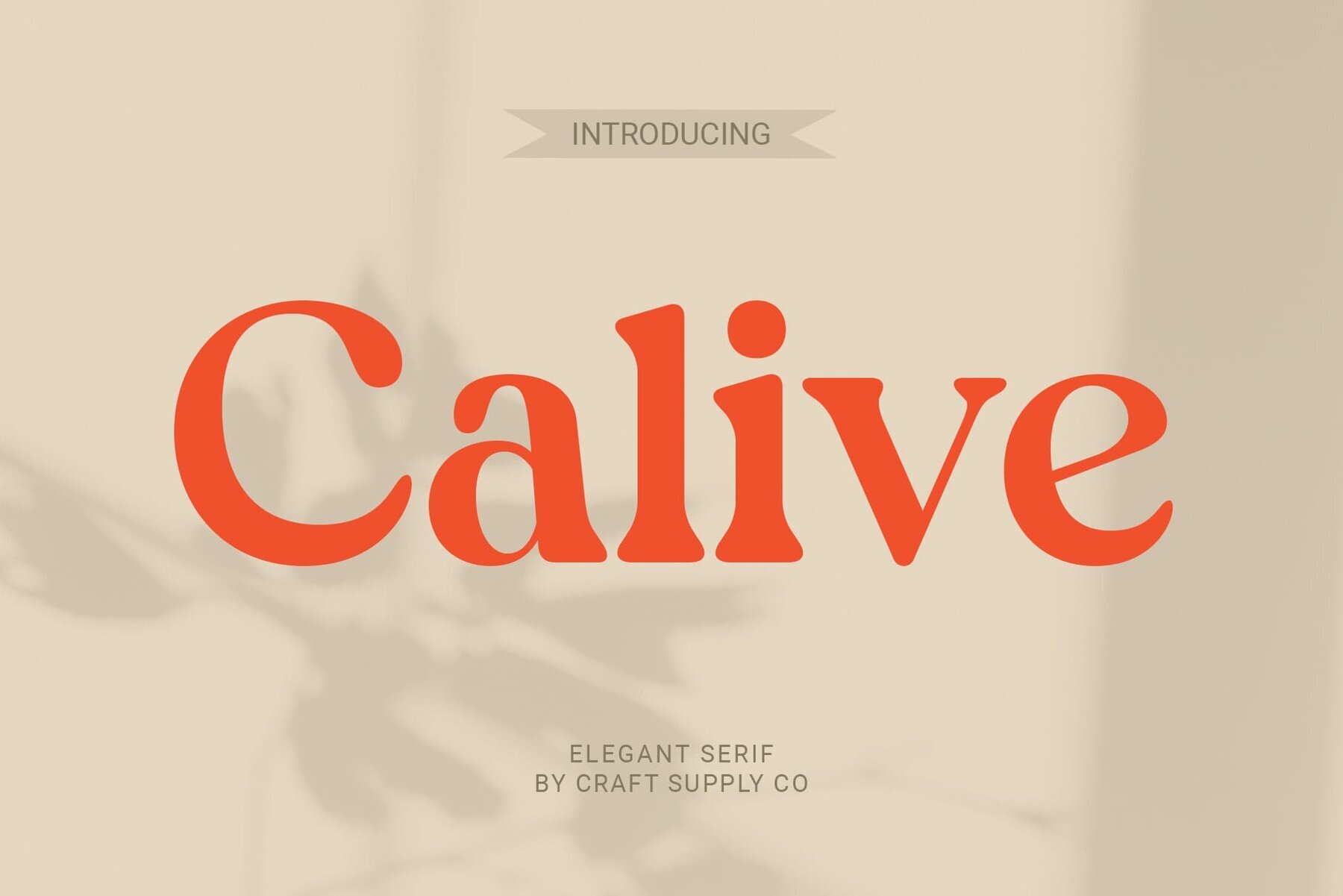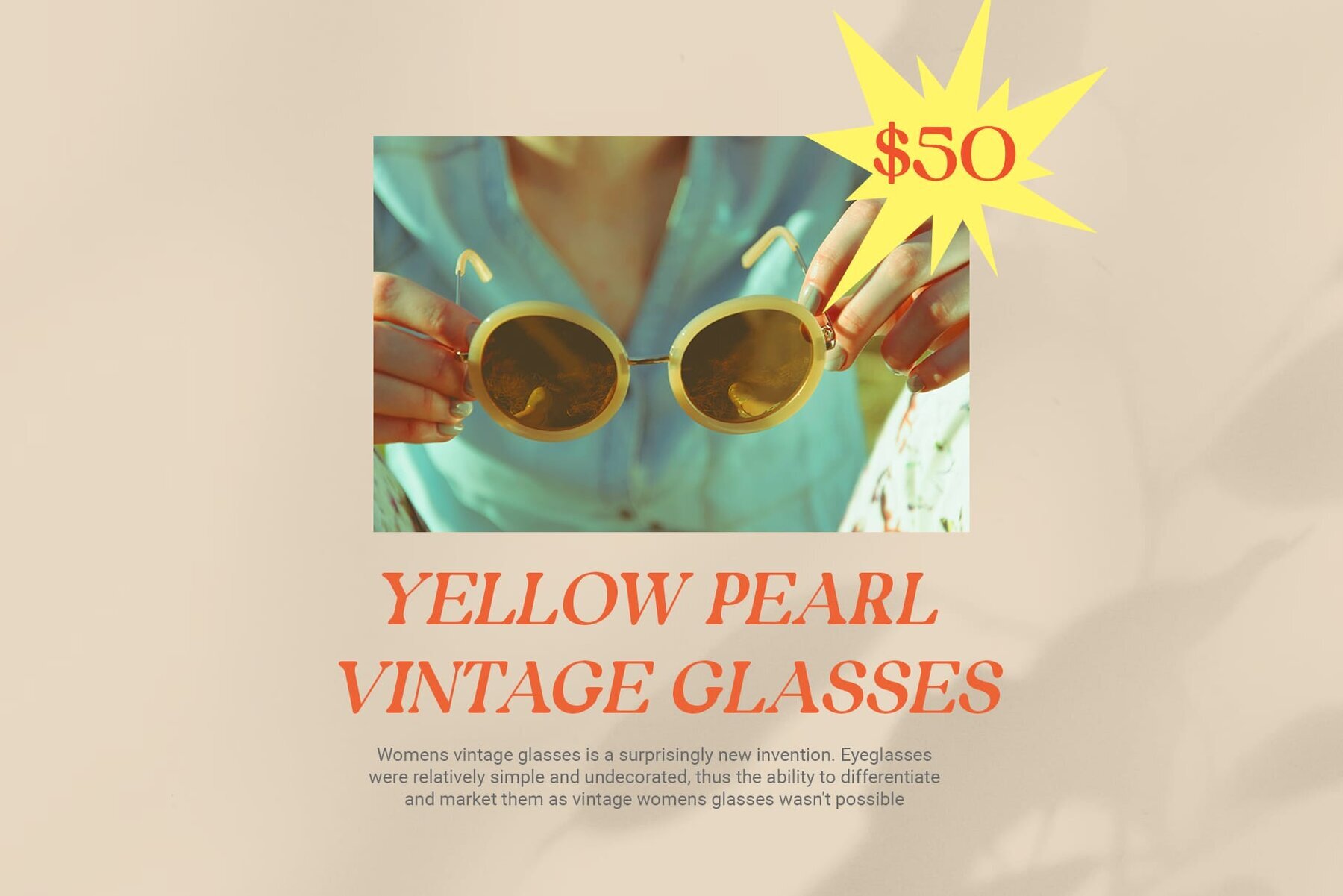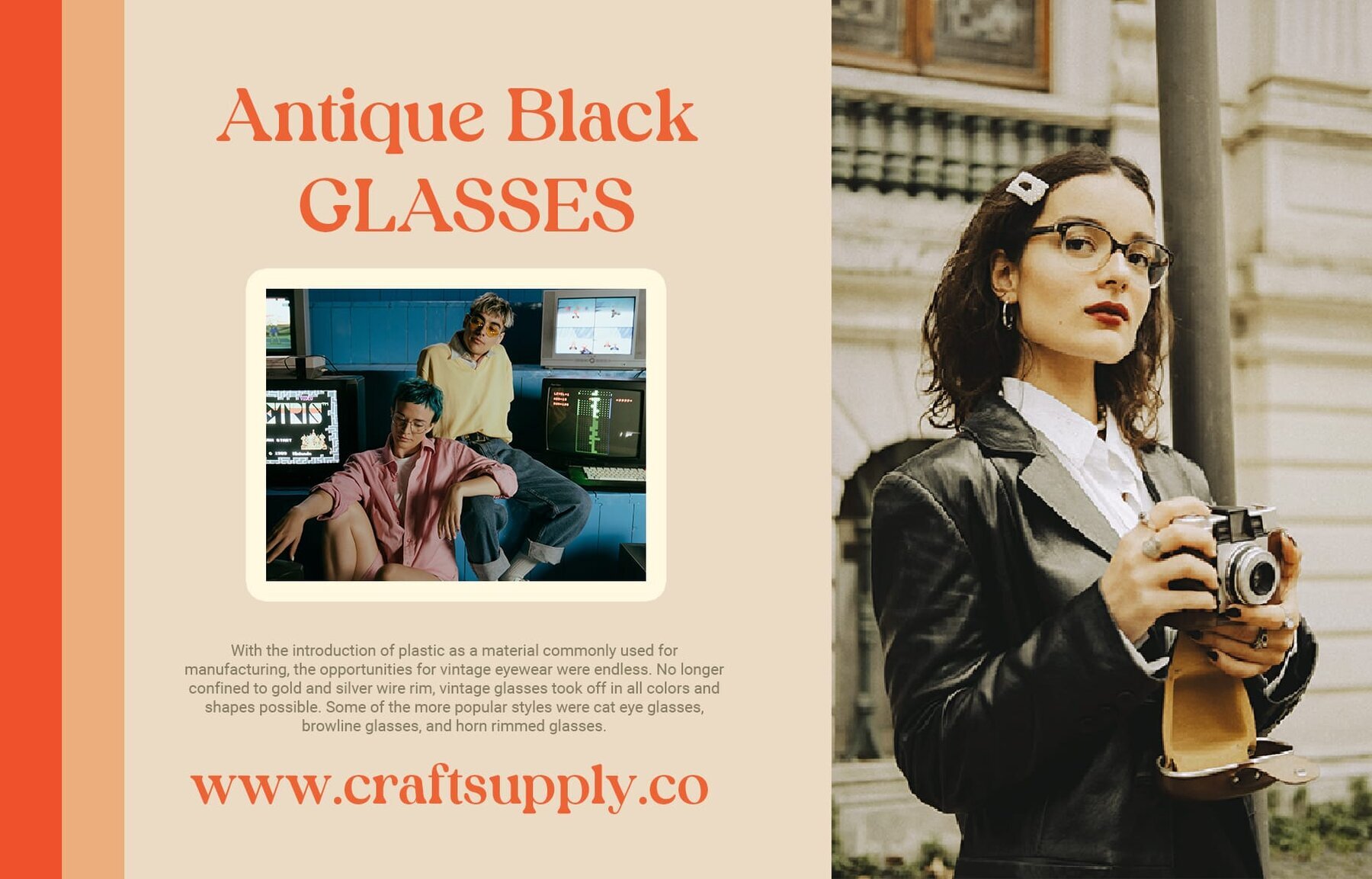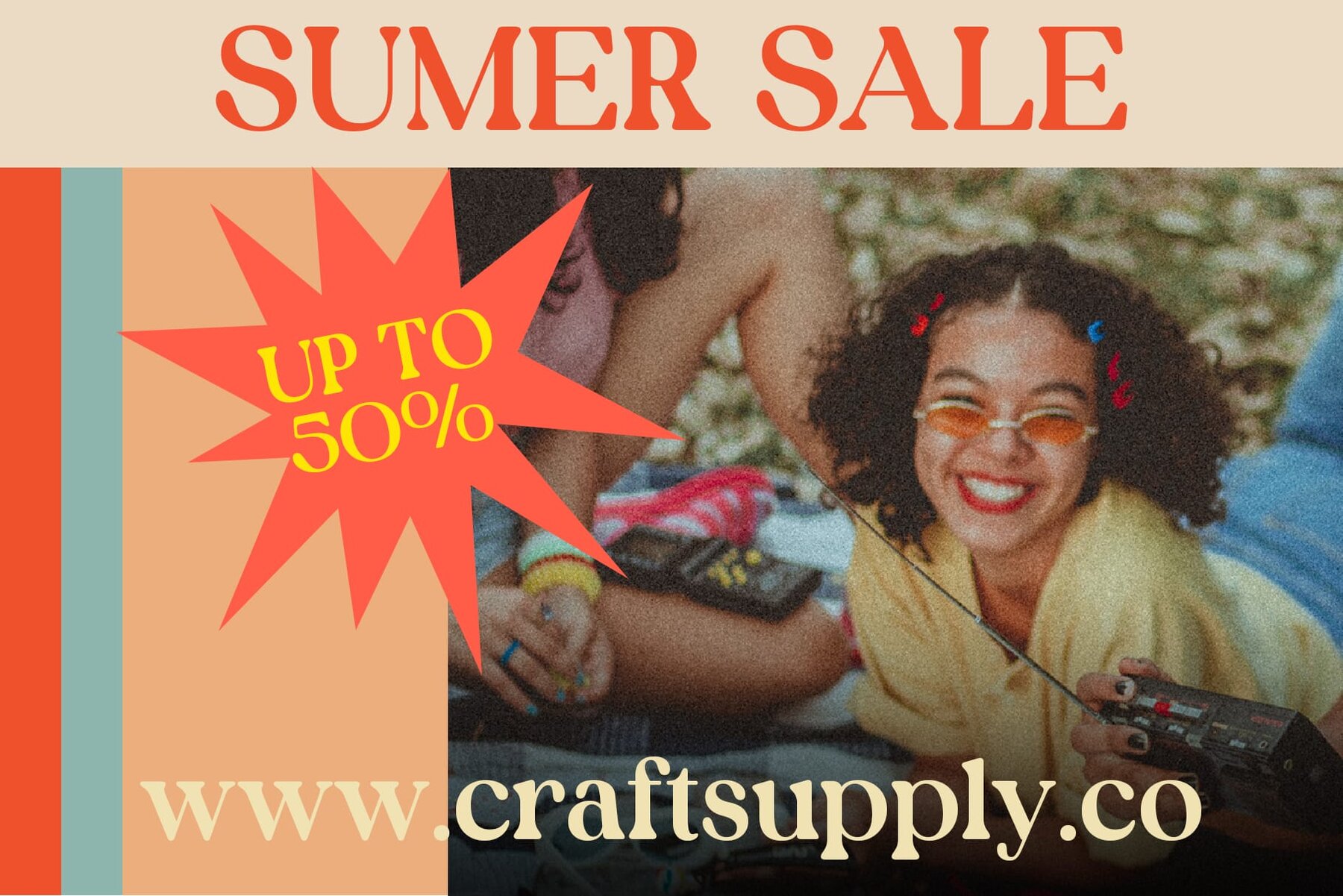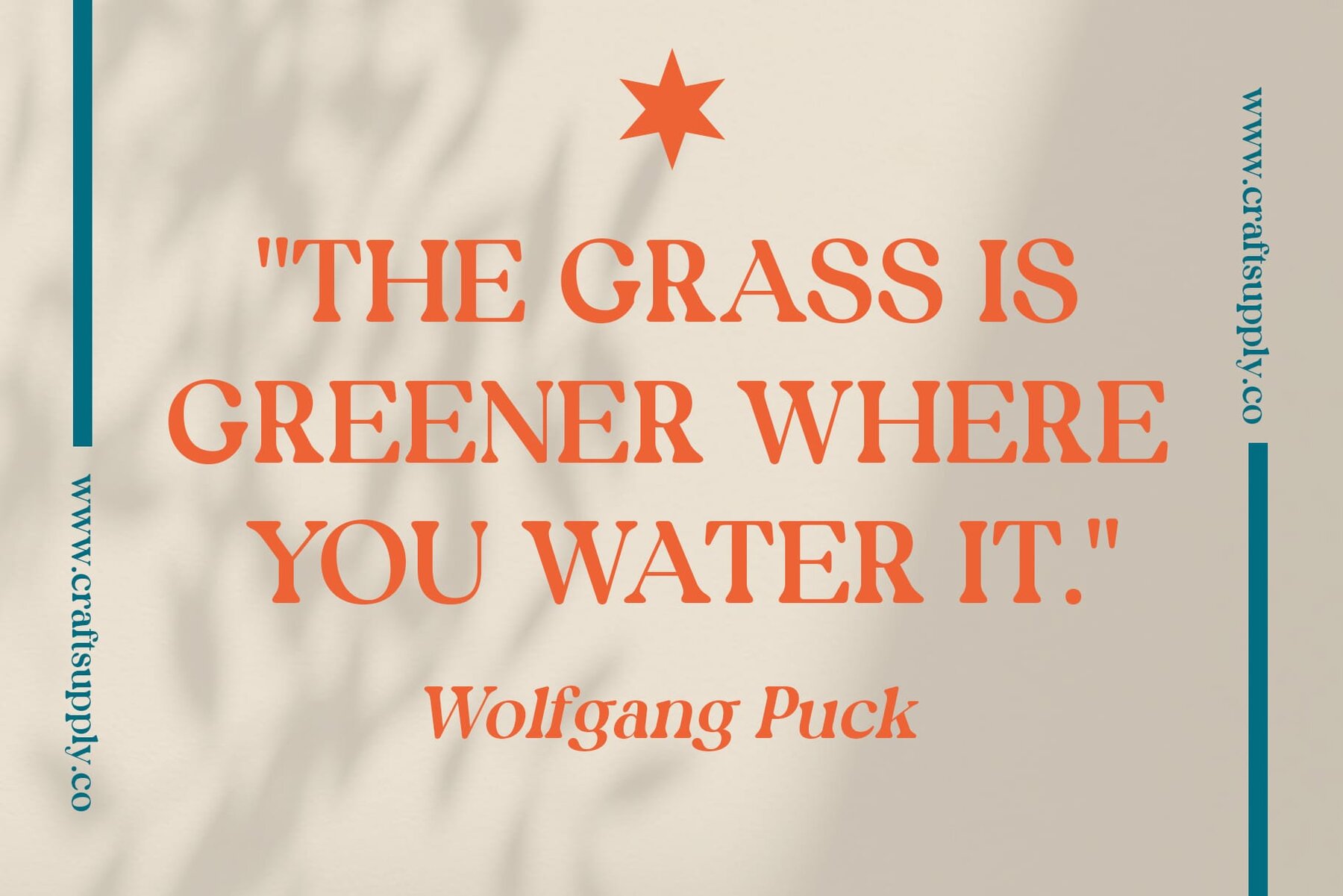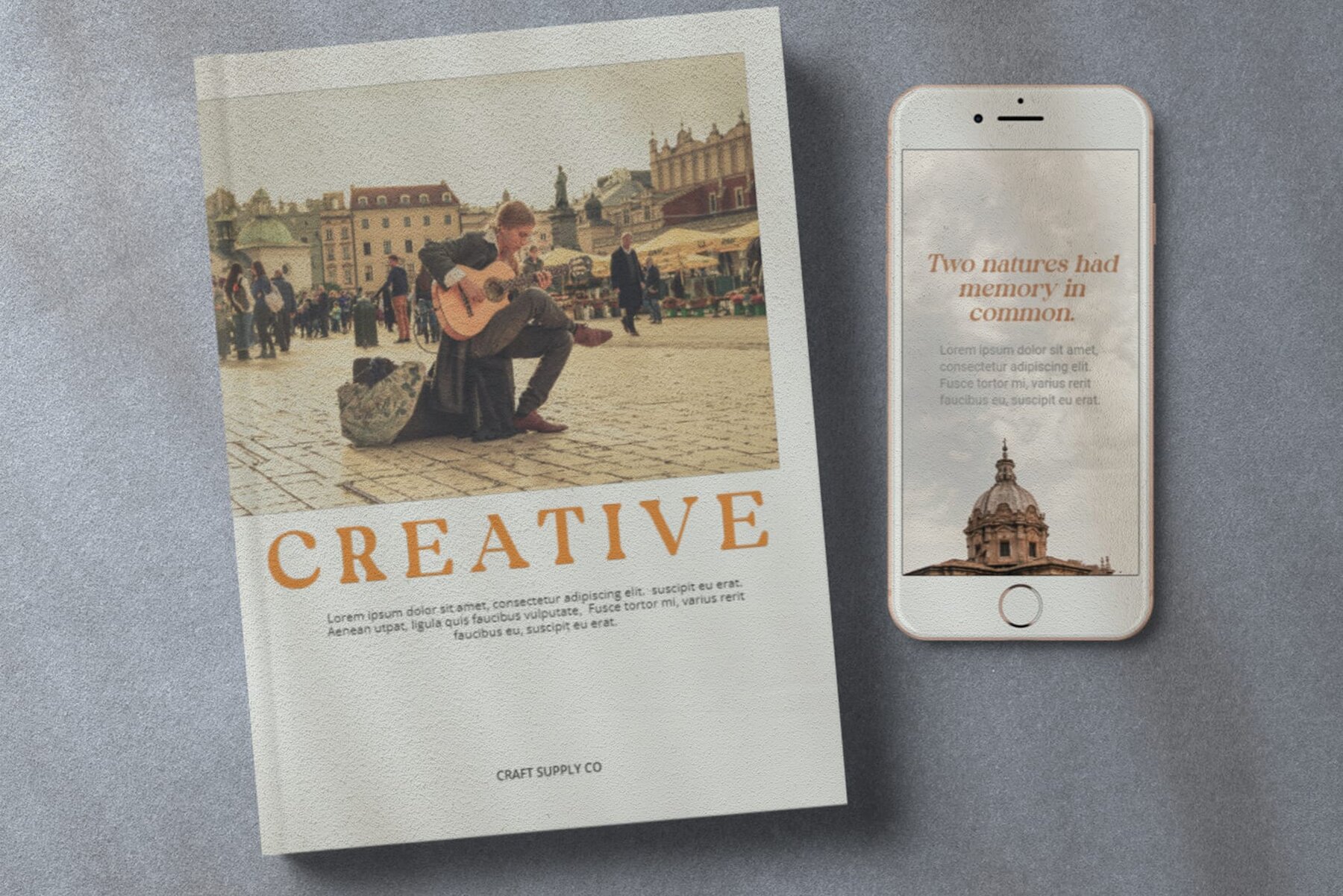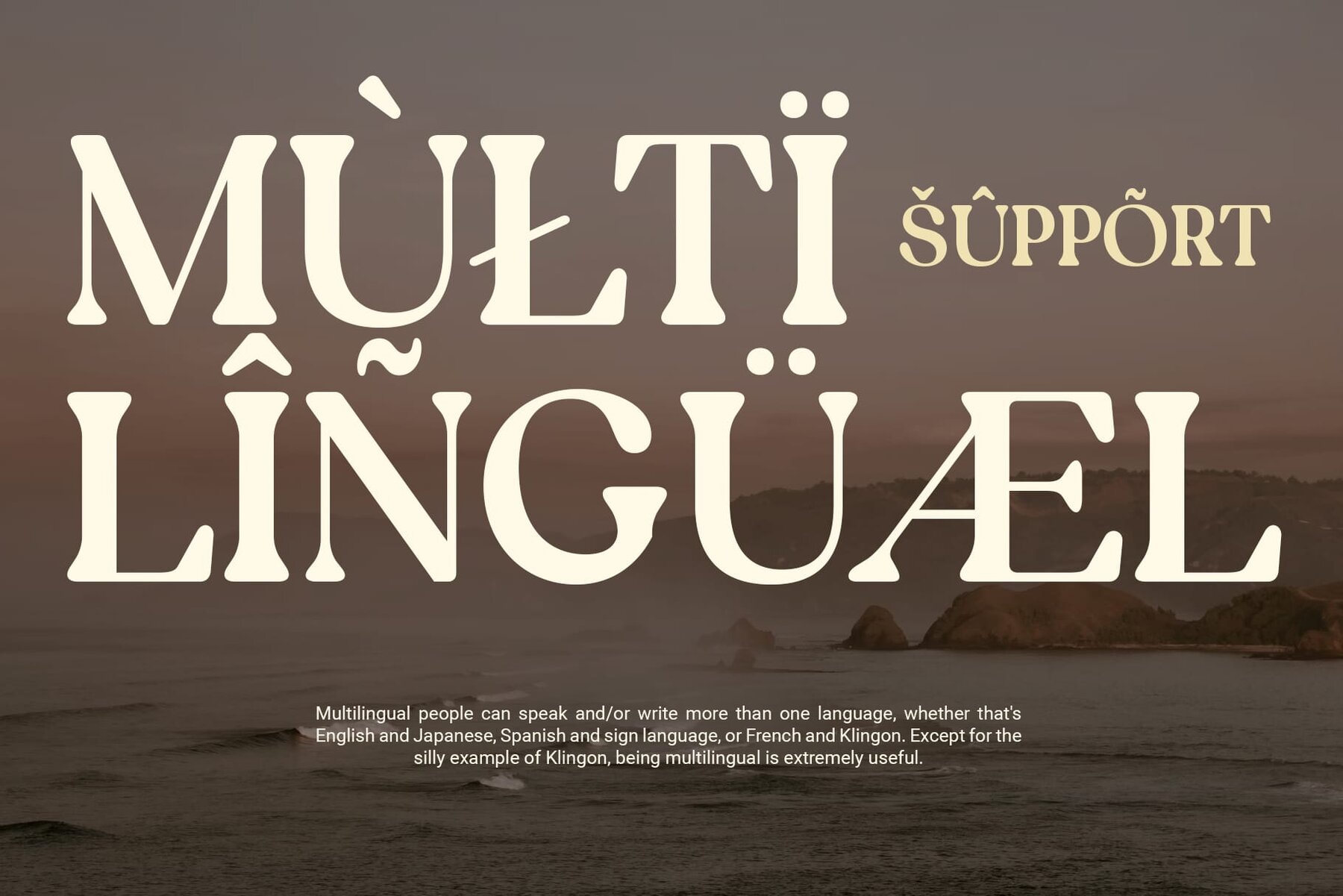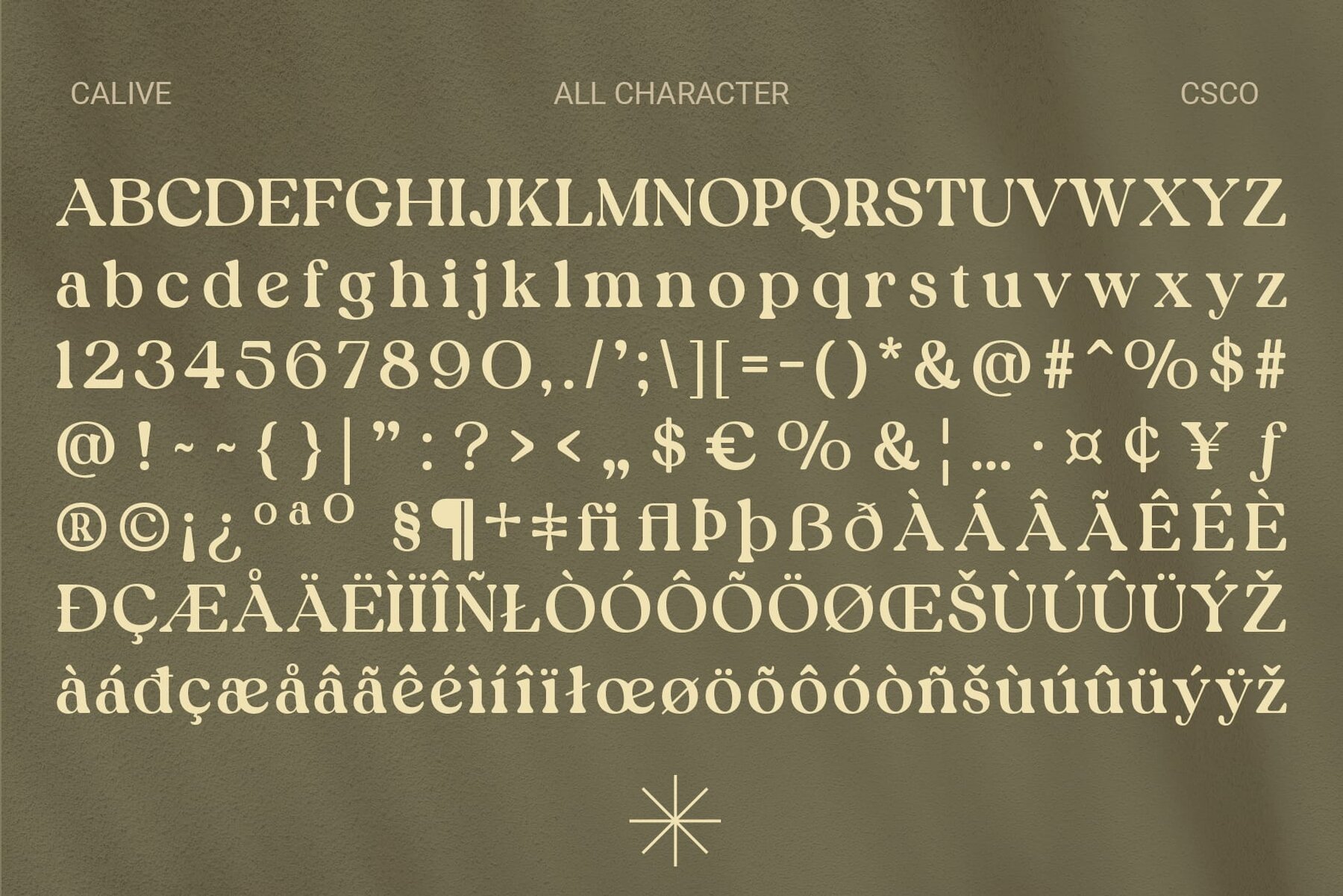
Calive Font
Calive, crafted by Craft Supply Co., is a serif font with a distinctive rounded design, capturing the gentle and soft aesthetics of 90s typography. Each letter exudes subtle charm, perfect for adding a touch of nostalgia to your projects. Calive's rounded serifs evoke a feeling of warmth and familiarity, transporting viewers back to the comforting visuals of the 90s. Its soft appearance is ideal for projects seeking a gentle and nostalgic vibe. This font is designed for versatility, making it suitable for various applications, including branding, packaging, and editorial design. Its nostalgic charm enhances the character and personality of every design it touches. Despite its retro-inspired look, Calive maintains a timeless appeal that surpasses fleeting trends. Whether used in digital or print media, its rounded serifs add warmth and approachability to any project. Calive embraces nostalgia with soft and rounded serifs reminiscent of 90s typography. Its versatility and timeless appeal make it an excellent choice for designers aiming to infuse projects with warmth and familiarity. Let Calive's gentle serifs tell your story with elegance. This typeface can be used without any specialized software. If you have any inquiries or need assistance, please feel free to contact us. We appreciate your support in enhancing your creative projects!Calive Font: A Soft and Nostalgic Serif
Rounded Serif Design
Versatile Usage
Timeless Appeal
Embracing Nostalgia with Soft Serifs